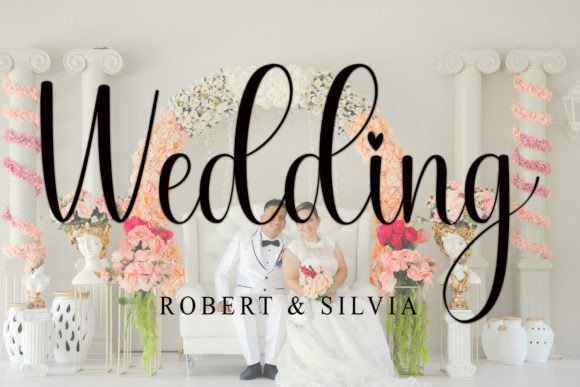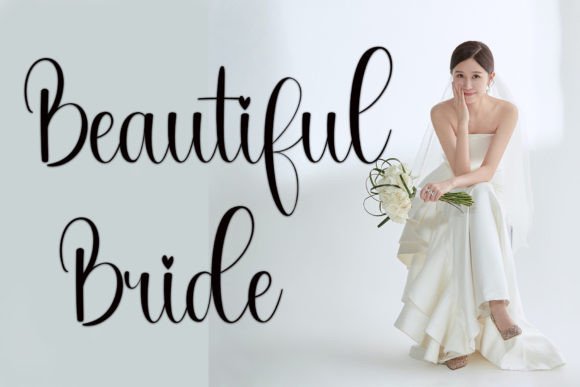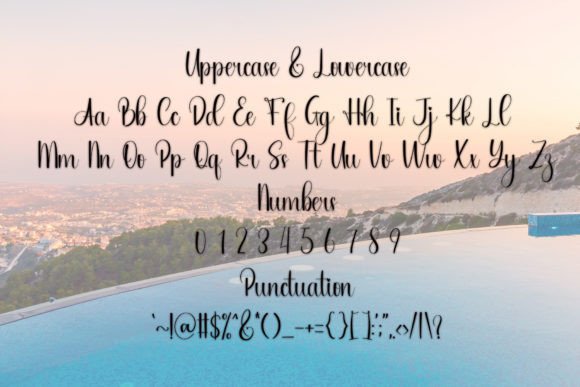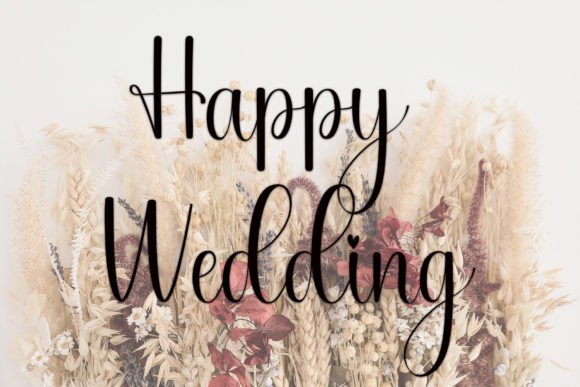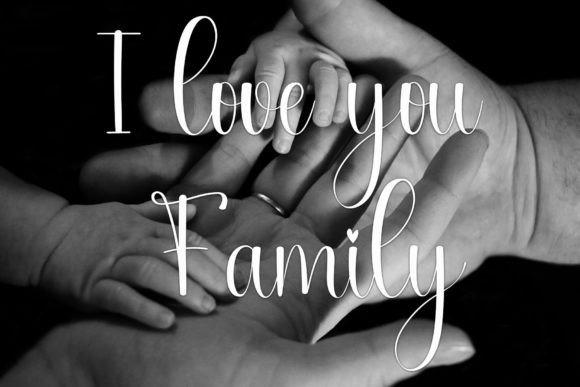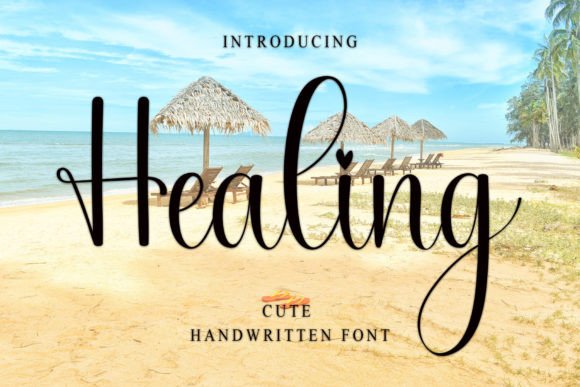
Discover the Power of Healing Font: Elevate Your Designs with a Cool, Simple, and Playful Handwritten Style
Are you tired of using the same old fonts in your designs? Look no further! Introducing Healing Font, a cool, simple, and playful handwritten font that’s about to take your creations to the next level. With its incredibly versatile design, Healing Font fits a wide pool of designs, making it the perfect addition to your font collection.
The Characteristics of Healing Font
Healing Font is a handwritten font that’s designed to be both fun and functional. Its cool and simple style makes it perfect for a wide range of designs, from playful crafts to modern branding projects. The font’s playful nature adds a touch of personality to any design, making it stand out from the crowd.
One of the key features of Healing Font is its versatility. Whether you’re creating a children’s book, a greeting card, or a website, this font adapts seamlessly to any design style. Its clean lines and simple shapes make it easy to read, while its playful flair adds a touch of whimsy.
The Benefits of Using Healing Font
So, why should you choose Healing Font for your next design project? Here are just a few benefits of using this amazing font:
- Elevate Your Designs: Healing Font has the power to transform your designs from ordinary to extraordinary. Its unique style adds a touch of personality to any project, making it stand out from the crowd.
- Increase Versatility: With Healing Font, you can create a wide range of designs, from playful crafts to modern branding projects. Its versatility makes it the perfect addition to your font collection.
- Easy to Read: Despite its playful nature, Healing Font is incredibly easy to read. Its clean lines and simple shapes make it perfect for body text, headings, and more.
- Add a Touch of Whimsy: Healing Font’s playful flair adds a touch of whimsy to any design. Whether you’re creating a children’s book or a greeting card, this font is sure to delight.
How to Use Healing Font in Your Designs
Using Healing Font in your designs is easy! Here are a few tips to get you started:
- Pair it with Other Fonts: Healing Font pairs perfectly with other fonts, creating a unique and interesting design. Try pairing it with a bold sans-serif font for a striking contrast.
- Use it for Headings and Body Text: Healing Font is perfect for both headings and body text. Use it to create a cohesive look throughout your design.
- Add a Pop of Color: Healing Font looks amazing in a variety of colors. Try adding a pop of color to your design to make it stand out.
Who Can Benefit from Healing Font?
Healing Font is perfect for a wide range of designers and crafters, including:
- Graphic Designers: Whether you’re creating branding materials, brochures, or business cards, Healing Font is a great addition to your font collection.
- Crafters: If you’re creating handmade crafts, such as greeting cards or scrapbook pages, Healing Font is a great way to add a personal touch.
- Web Designers: Healing Font is perfect for web designers who want to add a touch of personality to their website designs.
In conclusion, Healing Font is a cool, simple, and playful handwritten font that’s perfect for designers and crafters. Its versatility, ease of use, and playful flair make it a great addition to any font collection. Whether you’re creating a children’s book, a greeting card, or a website, Healing Font is sure to elevate your designs to the highest levels. So why wait? Add Healing Font to your favorite creative ideas and notice how it makes them come alive!